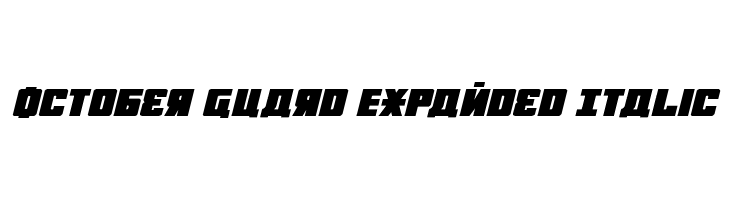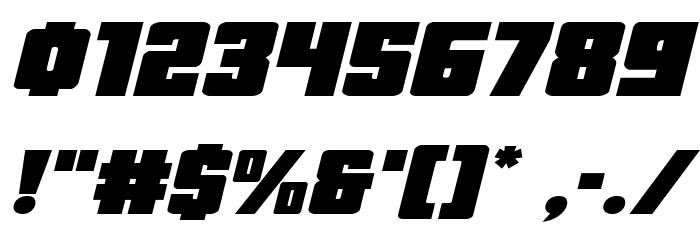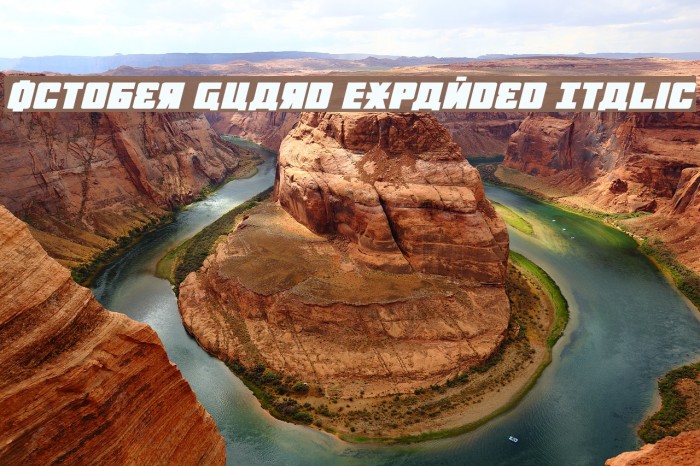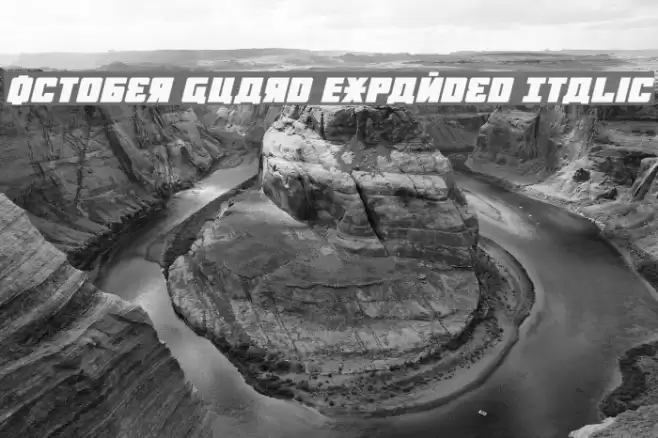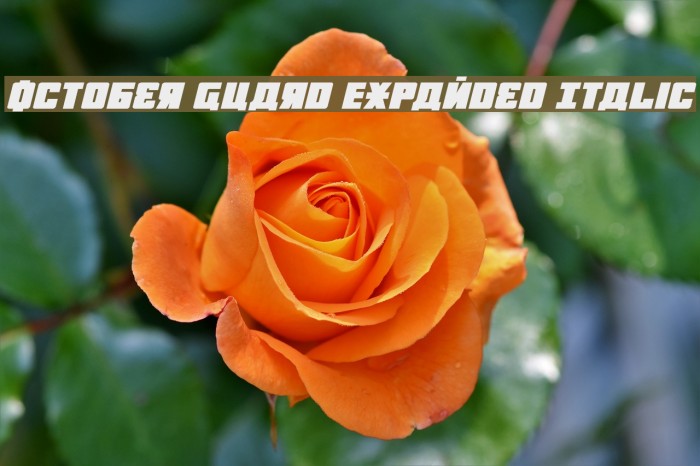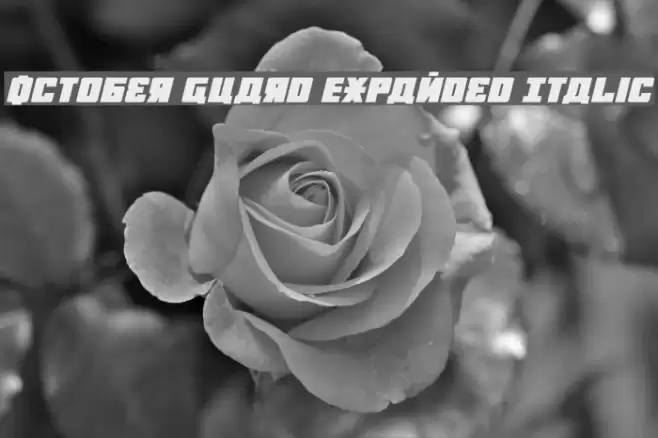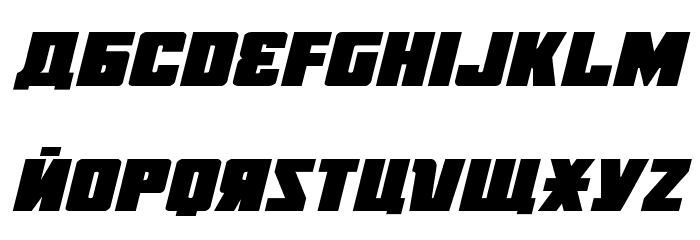
October Guard Expanded Italic Font
October Guard Expanded Italic Description
This font features a bold and dynamic style with a distinctly modern flair. The characters are expanded and italicized, giving them a sense of movement and urgency. The strokes are thick and consistent, providing a strong visual impact. The angular design of the letters adds a futuristic and edgy feel, making it suitable for attention-grabbing headlines or branding. The uppercase and lowercase letters maintain a uniform width, enhancing readability while retaining a unique character. The numerals and special characters are designed to match the boldness and style of the alphabet, ensuring a cohesive look across all text elements.